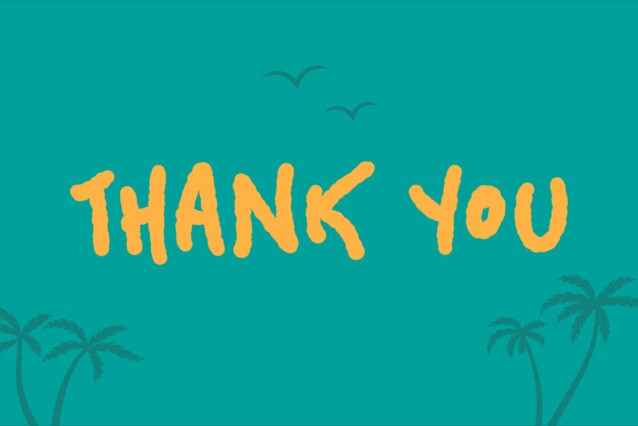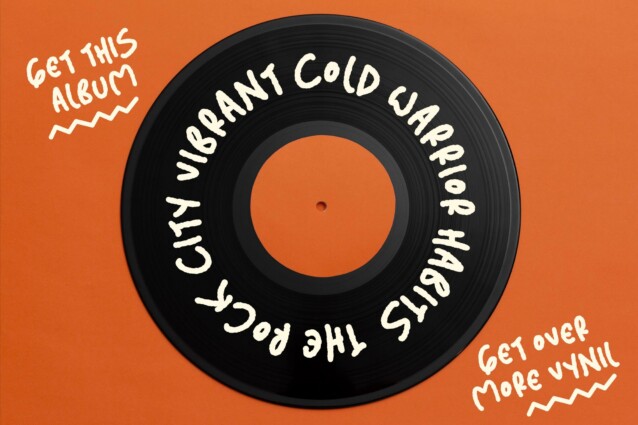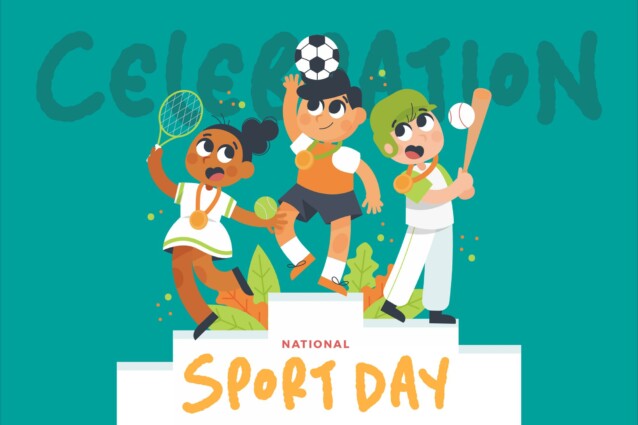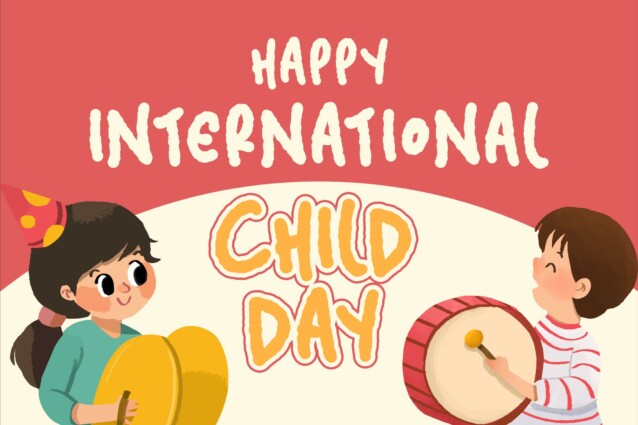
Giantrick Sadlyre Font
Giantrick Sadlyre Font is a Quirky Display Font, suitable for any projects such as: logos, branding projects, homeware designs, product packaging, mugs, quotes, posters, shopping bags, t-shirts, book covers, name card, invitation cards, greeting cards, label, photography, watermark, special events, and all your other lovely projects that need a beautiful script taste.